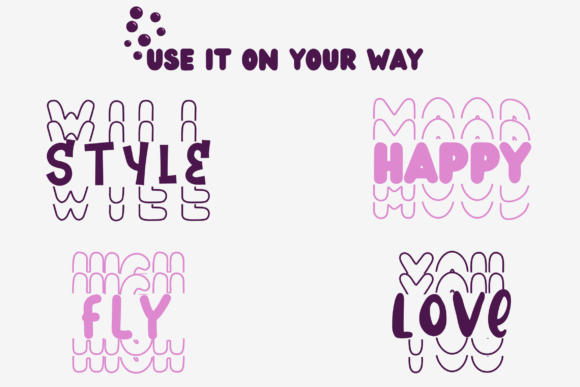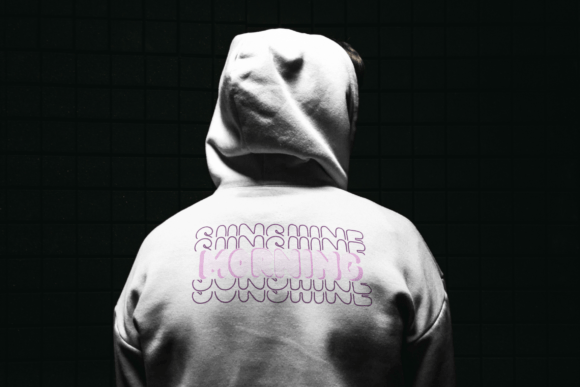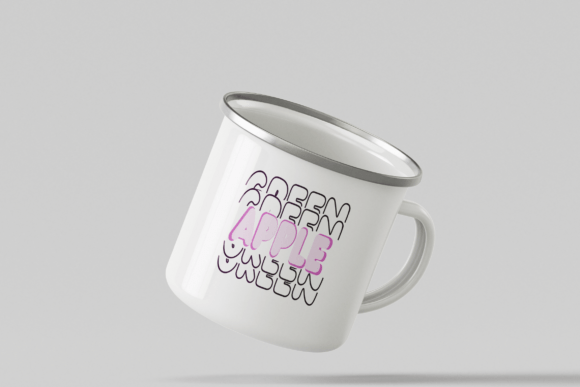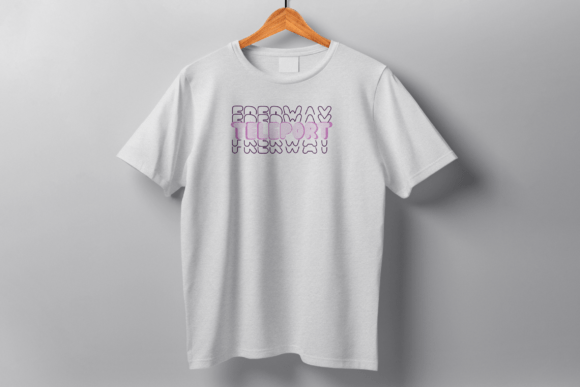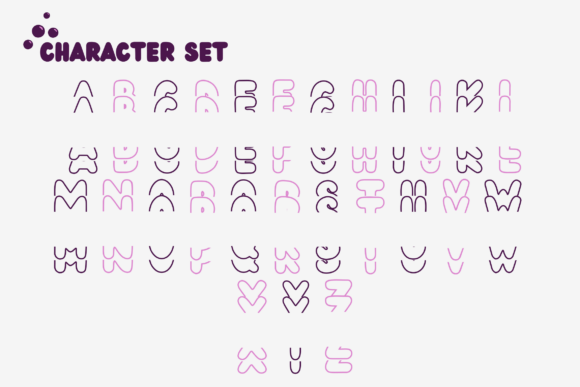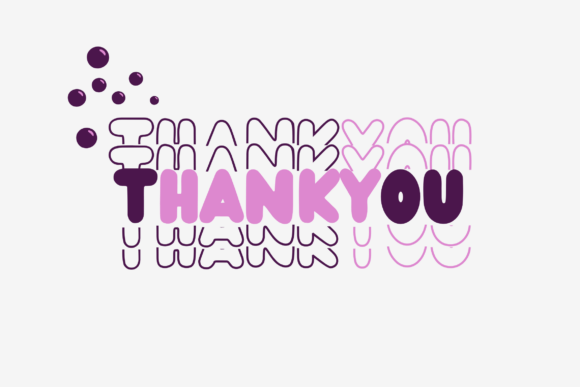
Welcome to the Whimsical World of Bubble Stacked Monogram Font
As a designer, I’ve had my fair share of moments where I struggled to find the perfect font for a project. I recall working on a custom kids’ party invitation for a client’s niece, wanting something that would capture the essence of childhood wonder. That’s when I stumbled upon the Bubble Stacked Monogram Font – a game-changer that instantly brought a smile to my face and a spring to my design step.
The Magic of Bubble Stacked Monogram Font
This bespoke, magical gem is dedicated to monogram enthusiasts and is perfect for adding a touch of spirited personalization to various digital creations, stationery, apparel, or drinkware. The Bubble Monogram Font infuses your projects with a wind of lighthearted amusement, making it an unbeatable choice for kid’s merchandise, party invitations, or any artistic lettering adventure.
Striking Features
• Peculiar Bubble-style lettering, introducing an animated, trendy appeal to your monograms and initials ✨
• Multi-dimensional advantage for embroidery; individual branding; Cricut & Silhouette masterpieces, or bespoke merchandise ✅
• The smooth bends and jovial rounded borders that give it a unique, whimsical feel 😊
• The font’s versatility – it can be used for a wide range of projects, from digital designs to physical products 📈
• The way it adds a touch of personality to any design, making it perfect for custom work 👌
While the Bubble Stacked Monogram Font is a fantastic addition to any design toolkit, there are a few things to keep in mind ⚠️:
• Some letters may require manual kerning to achieve optimal spacing 🤔
• The font’s bubble style may not be suitable for very formal or traditional designs 📊
The Bubble Stacked Monogram Font was inspired by the whimsical world of childhood wonder. Imagine a designer who spent their childhood creating fantastical worlds with crayons and imagination. As they grew older, their love for whimsy and playfulness only intensified, leading them to create a font that would bring joy to others. And so, the Bubble Stacked Monogram Font was born 🎨